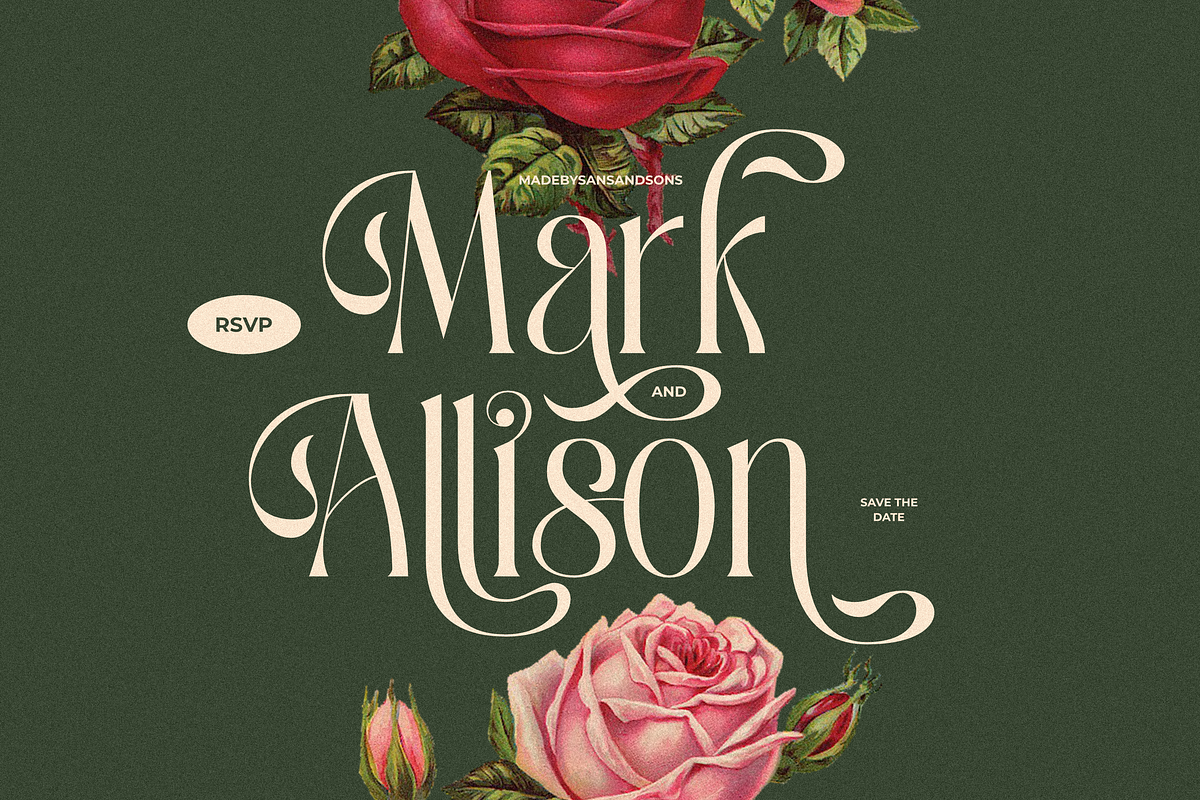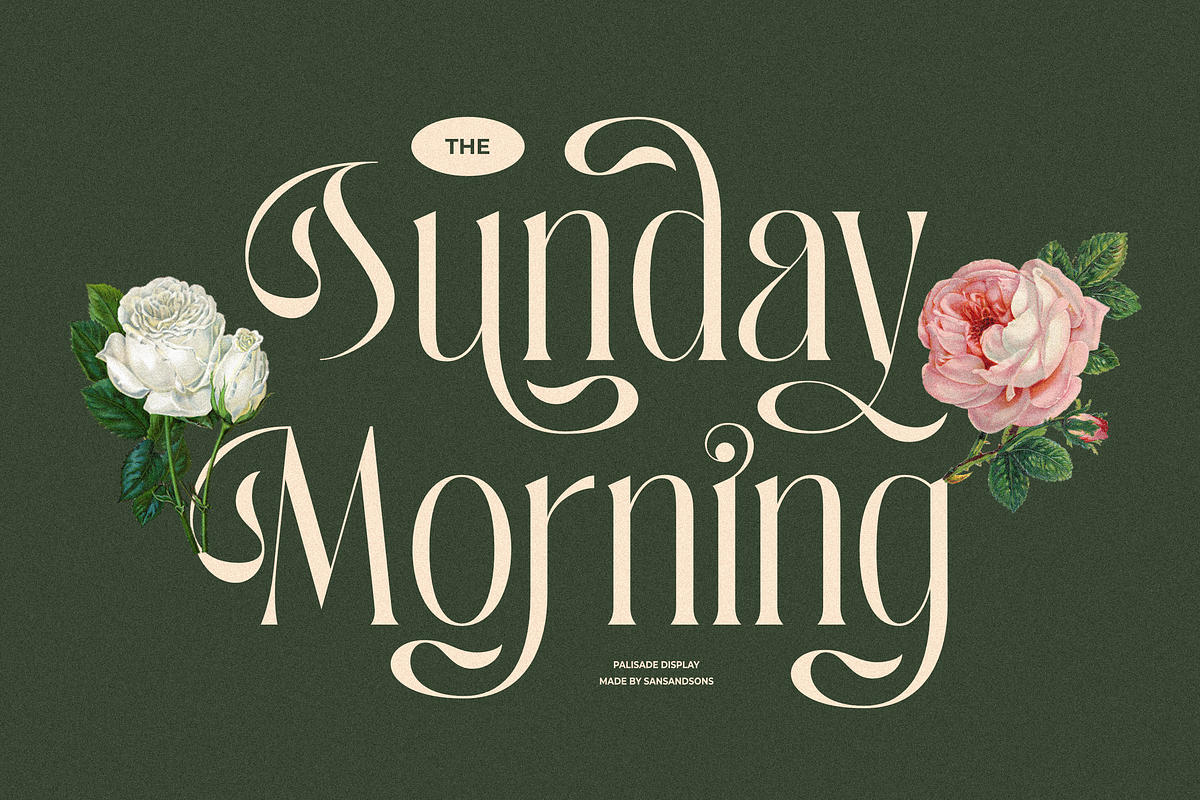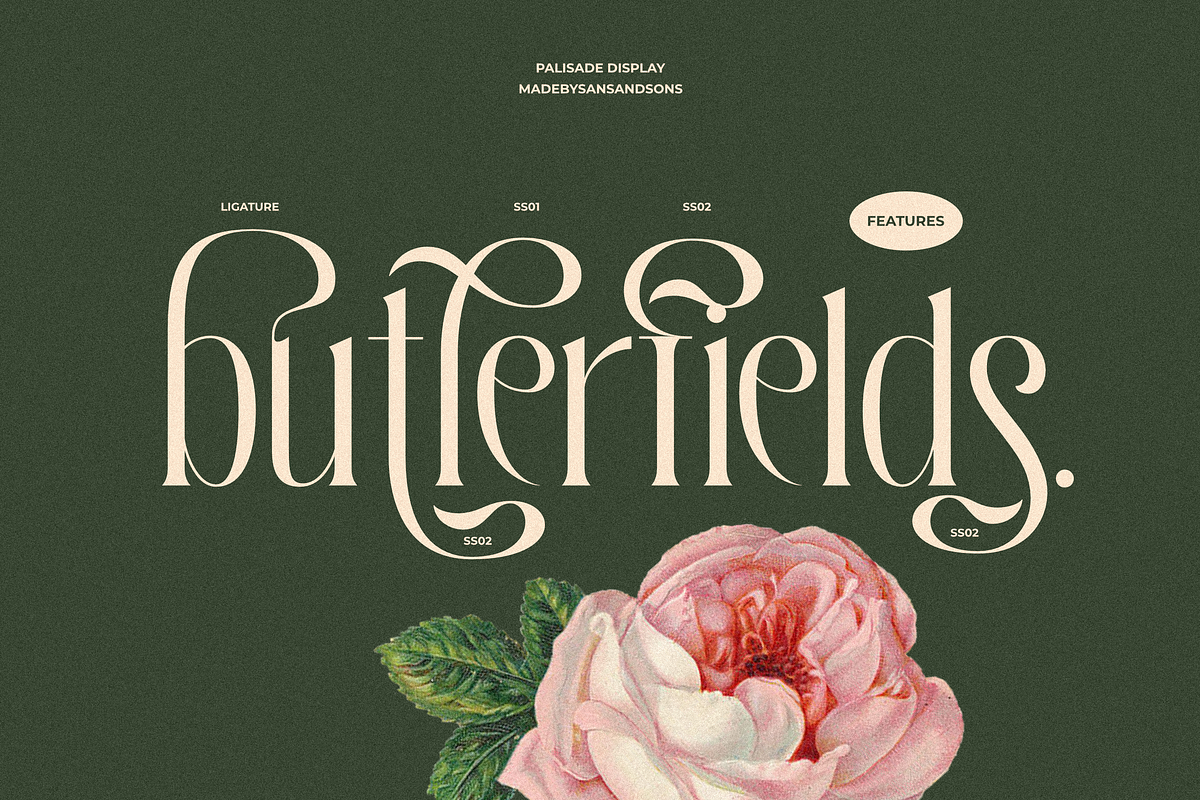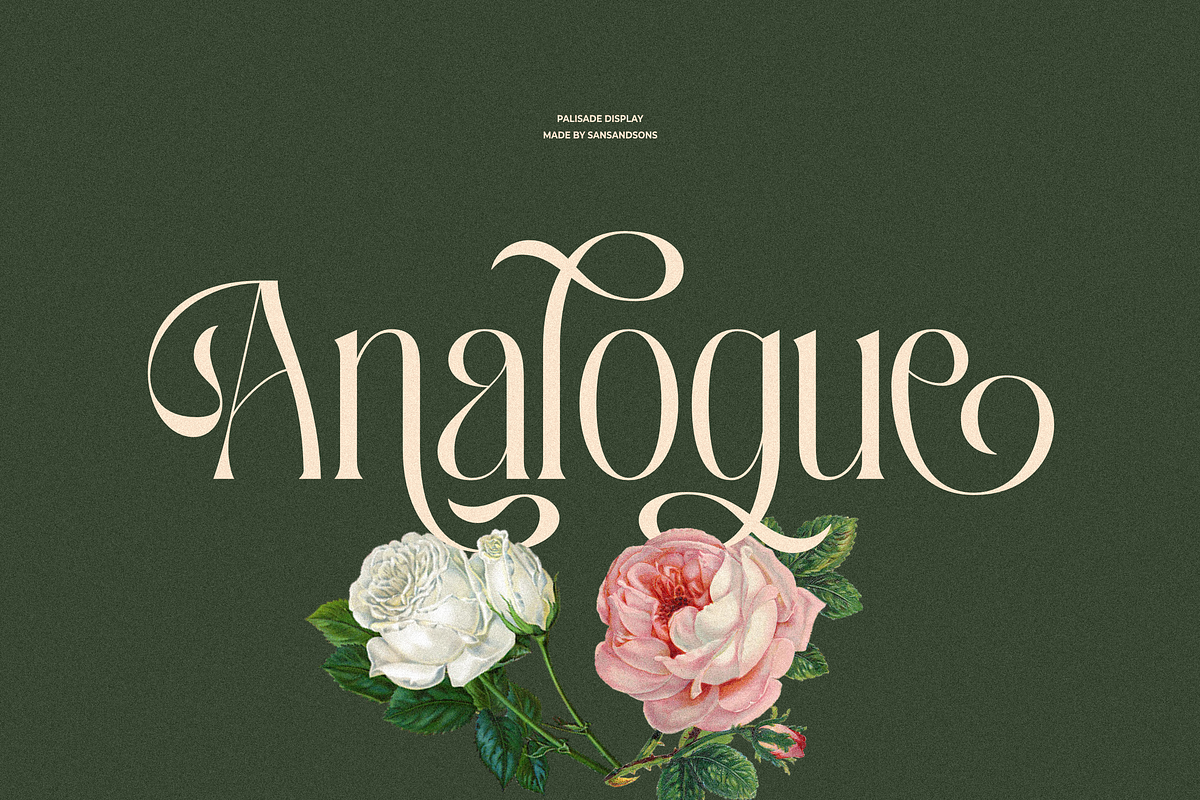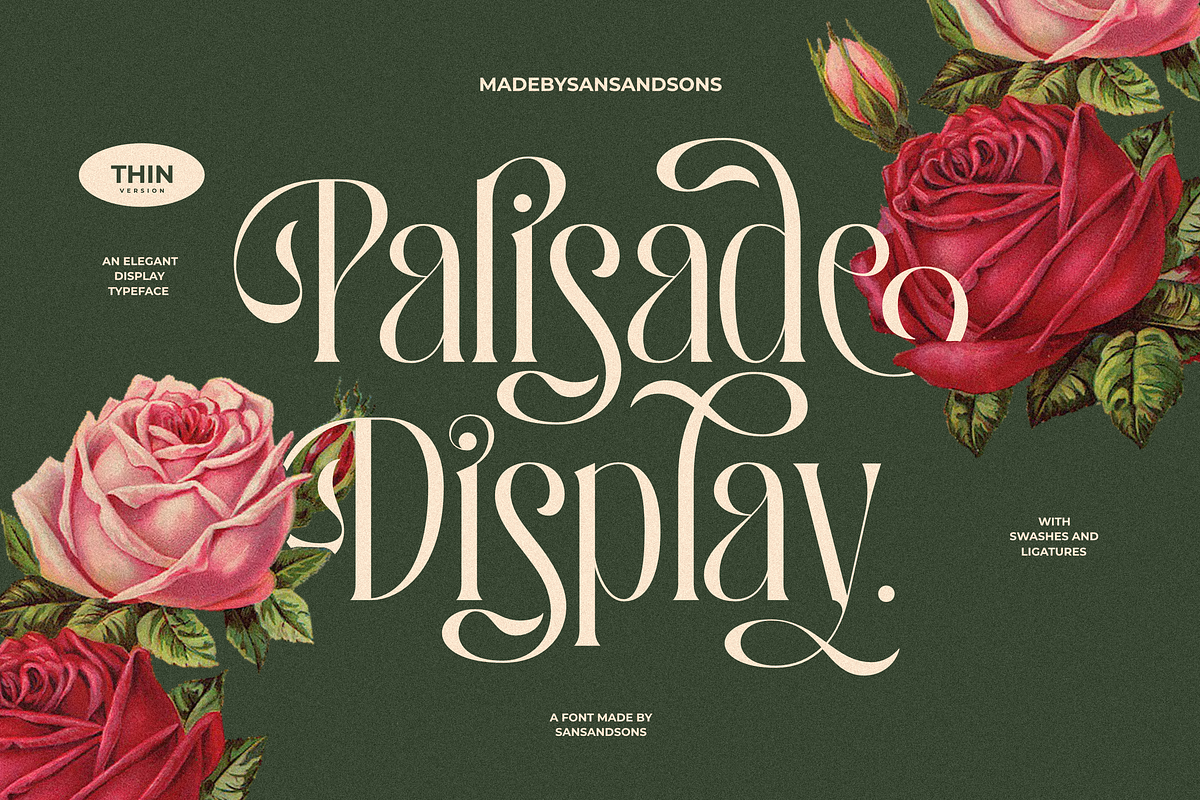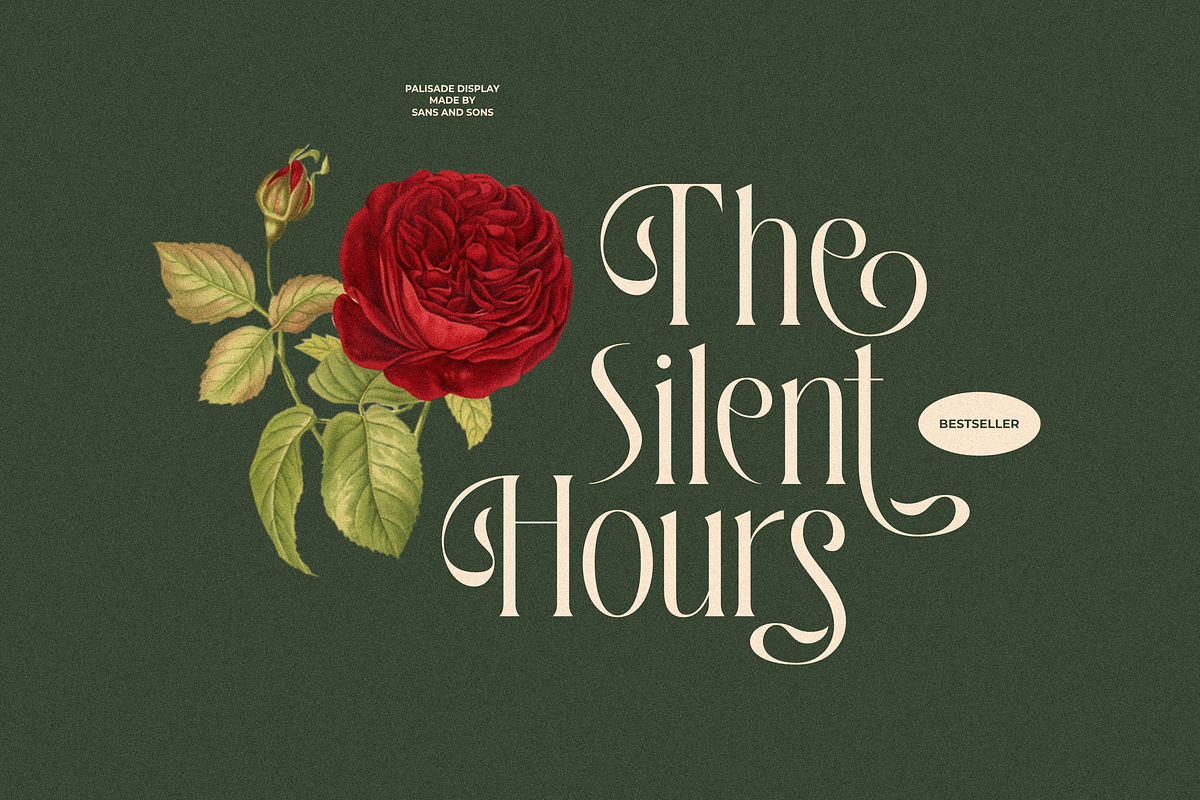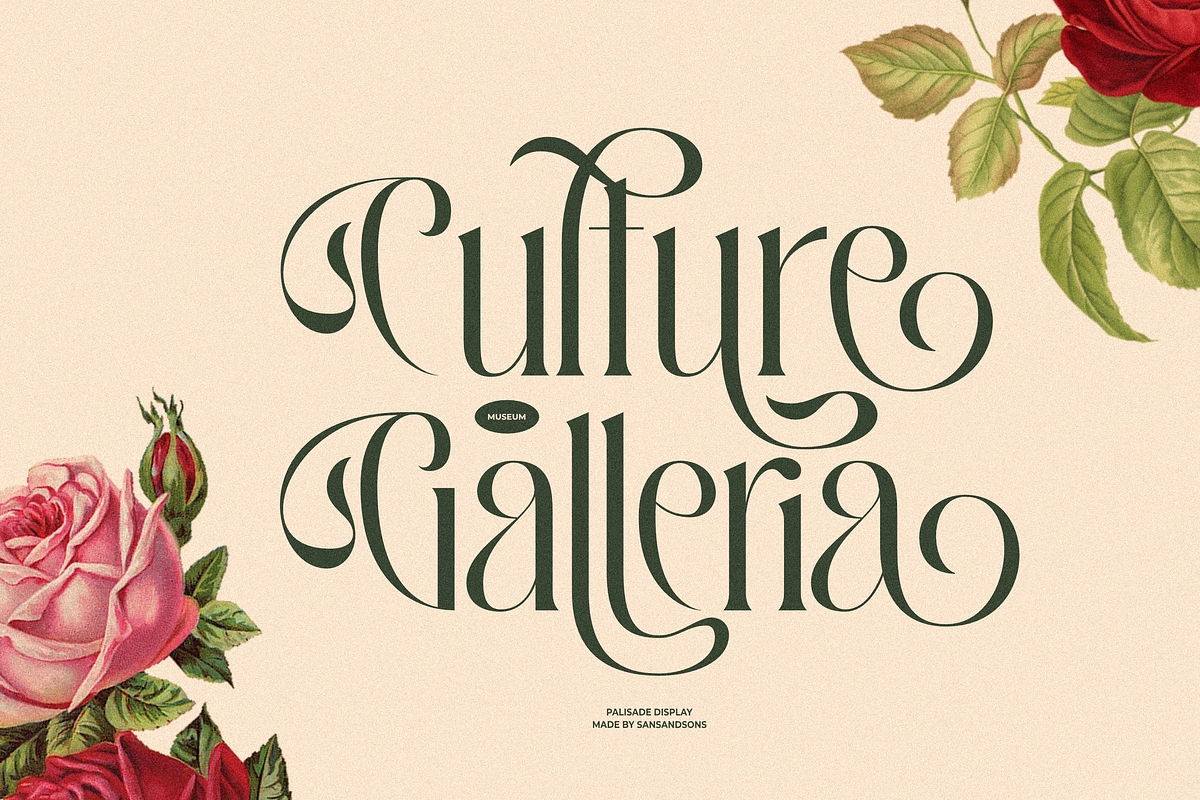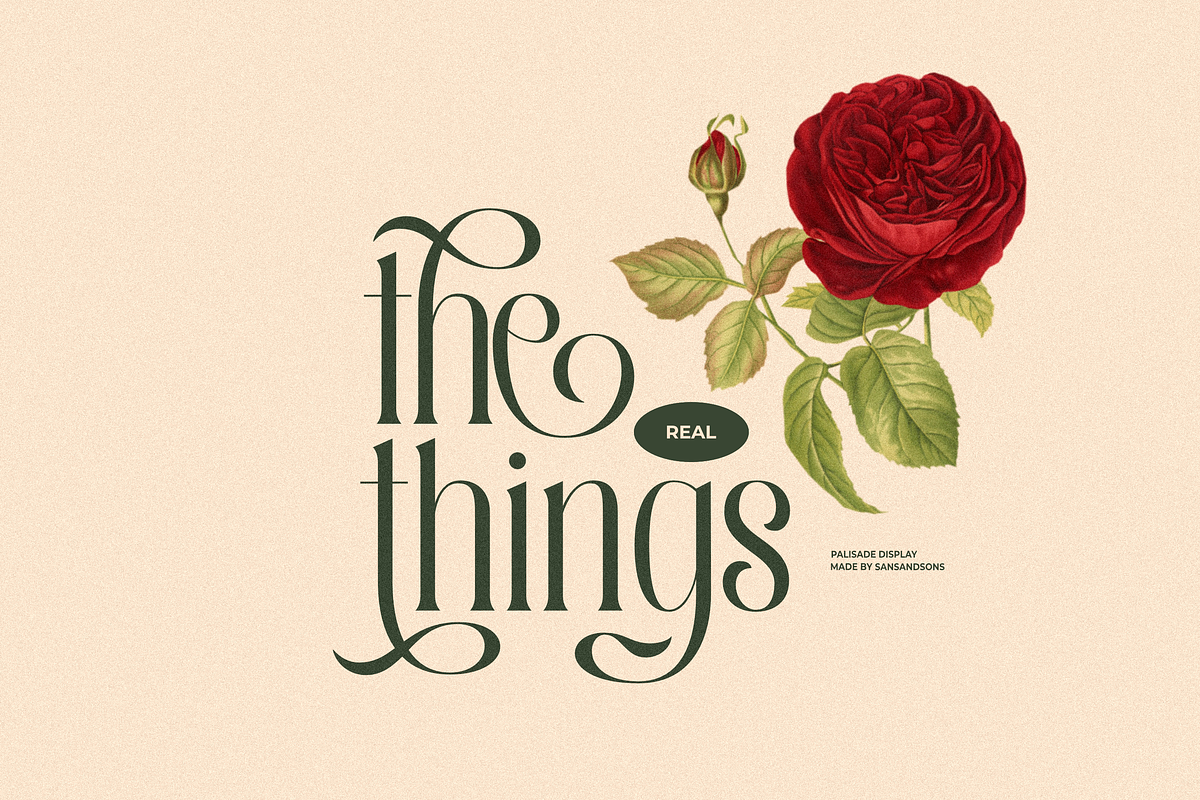
Palisade Display Font
Palisade Display - Made by Sans And Sons
Say hello to "Palisade Display" — a chic serif font that effortlessly blends classic vibes with a modern twist.
With sleek curves and subtle serifs, this font adds just the right amount of style to any project. Whether you're working on branding, invitations, or editorial layouts, Palisade Display brings a polished yet approachable feel. It’s the go-to font for making your design look timeless and effortlessly cool. Let every letter speak with confidence and flair.